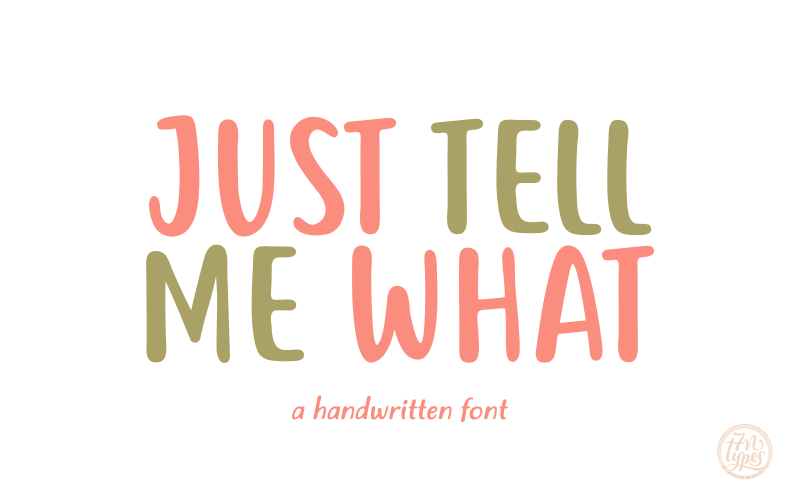
Just tell me what Font
Just tell me what is a flowing, rounded handwritten font. The font breathes a soft vibe which give the text a relaxed and happy feeling. It has two family: Regular and italic